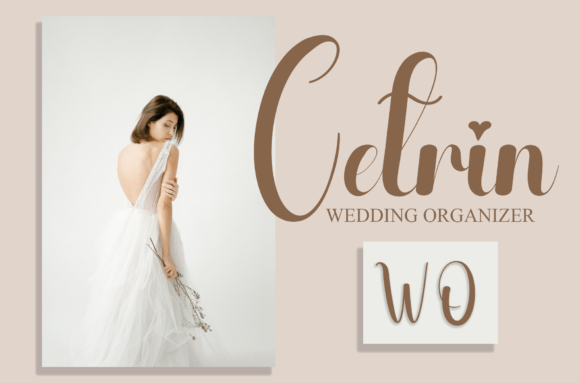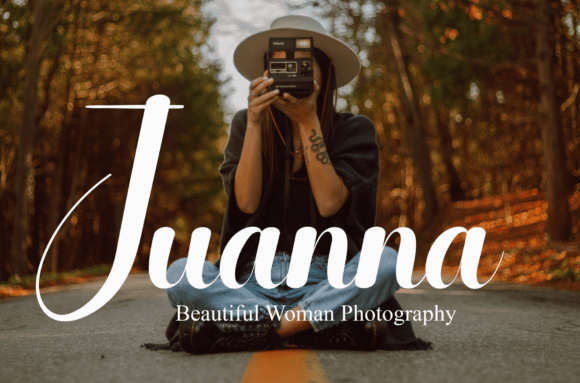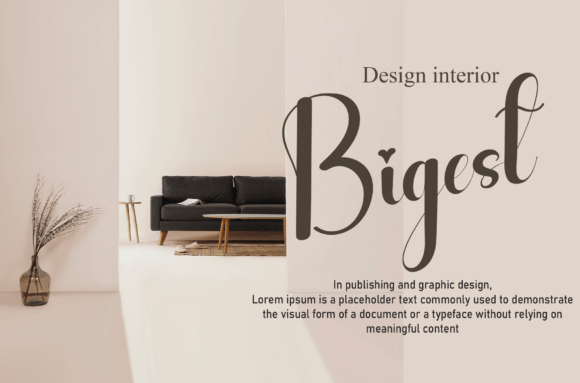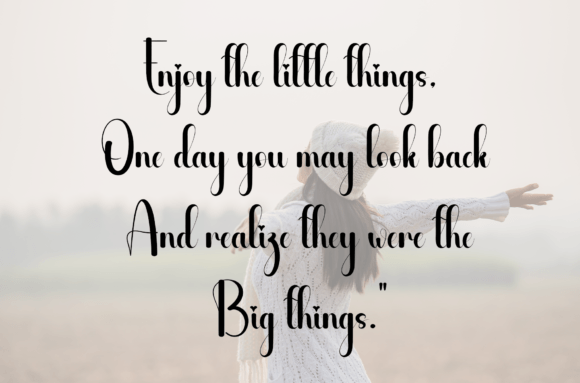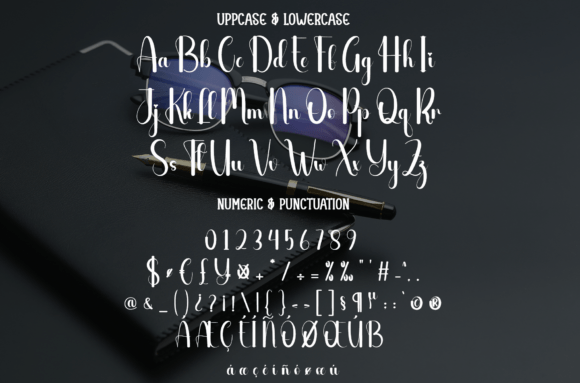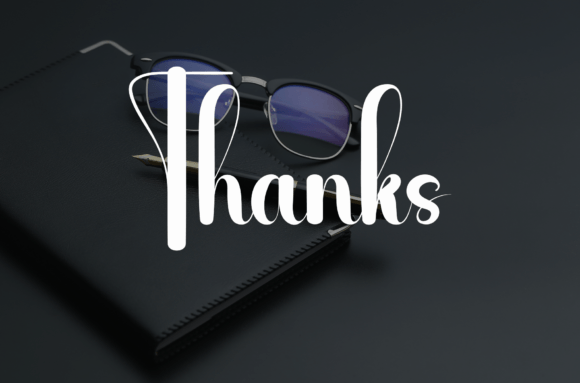
Introducing Blackbook Font: The Sweet and Friendly Handwritten Font for Your Creative Projects
Are you tired of using the same old fonts for your designs? Look no further! Blackbook Font is a beautiful, sweet, and friendly handwritten font that’s perfect for adding a personal touch to your projects. In this article, we’ll dive into the world of Blackbook Font, exploring its features, benefits, and uses. Whether you’re a designer, crafter, or DIY enthusiast, you’ll love what this font has to offer.
What is Blackbook Font?
Blackbook Font is a fresh and neat handwritten font that’s ideal for writing wedding invitations, cards, or any other design that might need a fun touch. Its sweet and friendly style makes it perfect for a wide range of creative projects, from party decorations to social media graphics. With its elegant and cursive script, Blackbook Font is sure to add a touch of warmth and personality to your designs.
Key Features of Blackbook Font
- Handwritten style: Blackbook Font boasts a beautiful, handwritten style that’s perfect for creating personal and unique designs.
- Sweet and friendly: The font’s sweet and friendly tone makes it ideal for designs that require a touch of warmth and personality.
- Fresh and neat: Blackbook Font is incredibly fresh and neat, making it perfect for designs that require a clean and modern look.
- Versatile: This font is versatile and can be used for a wide range of creative projects, from wedding invitations to social media graphics.
Benefits of Using Blackbook Font
So, why should you use Blackbook Font for your designs? Here are just a few benefits:
- Adds a personal touch: Blackbook Font’s handwritten style adds a personal touch to your designs, making them stand out from the crowd.
- Easy to read: The font is incredibly easy to read, making it perfect for designs that require a clear and concise message.
- Enhances creativity: Blackbook Font’s unique style is sure to inspire your creativity and help you come up with fresh and innovative design ideas.
- Perfect for DIY projects: This font is ideal for DIY enthusiasts and crafters who want to add a personal touch to their projects.
Uses of Blackbook Font
Blackbook Font is incredibly versatile and can be used for a wide range of creative projects, including:
- Wedding invitations: The font’s sweet and friendly style makes it perfect for writing beautiful wedding invitations.
- Cards and stationery: Blackbook Font is ideal for creating personalized cards and stationery for special occasions.
- Social media graphics: The font’s modern and clean style makes it perfect for creating engaging social media graphics.
- Party decorations: Blackbook Font can be used to create beautiful party decorations, including banners, garlands, and more.
Tips for Using Blackbook Font
Here are a few tips for using Blackbook Font:
- Pair with other fonts: Experiment with pairing Blackbook Font with other fonts to create unique and interesting combinations.
- Use for headings and titles: The font’s bold and cursive style makes it perfect for headings and titles.
- Add embellishments: Consider adding embellishments, such as flowers or leaves, to give your designs an extra touch of personality.
In conclusion, Blackbook Font is a beautiful and versatile handwritten font that’s perfect for adding a personal touch to your designs. Its sweet and friendly style makes it ideal for a wide range of creative projects, from wedding invitations to social media graphics. With its fresh and neat style, Blackbook Font is sure to inspire your creativity and help you come up with fresh and innovative design ideas. So why not give it a try and see what amazing designs you can create?